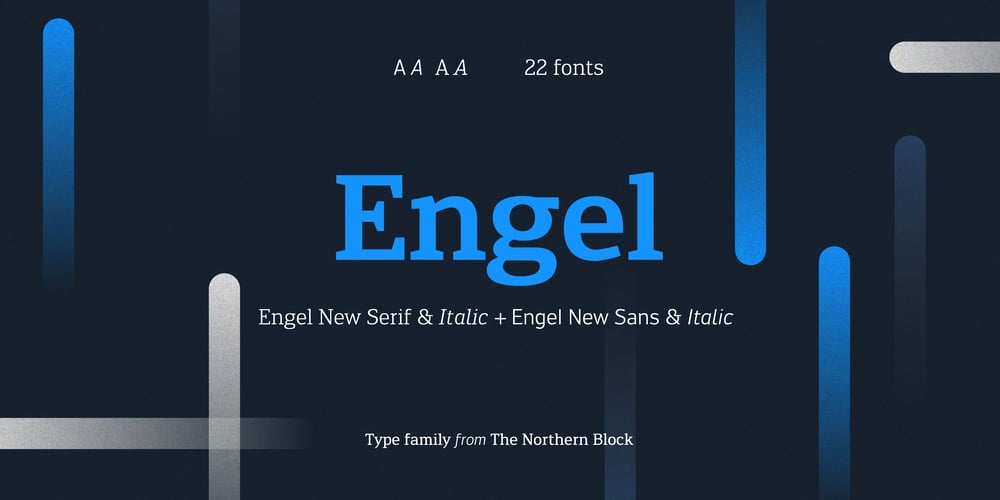
Engel New Font Family was designed by Sofie Beier and published by The Northern Block. Engel New contains 24 styles and family package options. EngelNewSans is sans serif family of 12 weights and an upgrade of the typeface Engel also published by Die Gestalten Verlag. The project began with an extension to the original Engel character set and freshening up the typeface to suit the OpenType format. EngelNewSerif came about as a sibling to EngelNewSans as a corresponding serif family also of 12 weights, matching those of EngelNewSans. Both families are designed for a wide usage in running text and headlines. EngelNewSans is an evolved version of the original Engel typeface, which undergone improvements to the individual letterforms and the overall look which resulted in this sans serif type family with a more mature confident character and with softer, rounder and more harmonious shapes. The characteristics between the two could perhaps, very fittingly, be compared to a person showing different sides to their personality at different stages in life. With EngelNewSans portraying the more mature role while the original Engel shows traits of a cool teenager with rough edges, not yet fully developed. To make the light weights function with serifs attached for EngelNewSerif, the same low stroke contrast as seen in EngelNewSans was applied. Further discovery found that the serifs and the stem width had to be optically similar for the light weights not to appear too fragile. In the heavy weights however, the stroke contrast was higher than in the Sans versions, this was done to open up the counters and make room for the serifs to breathe. The intention of the families is to motivate an element of play and give the designer a larger selection to work with.